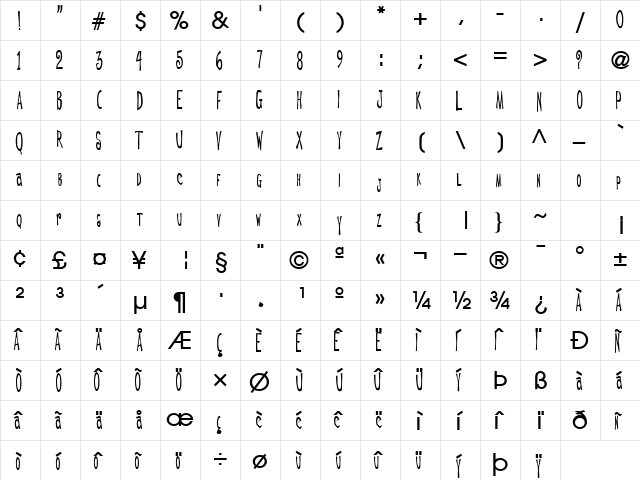
DeGarThin6 Bold Font Preview
DeGarThin6 Bold
DeGarThin6 Bold Font Details
Design Context for DeGarThin6 Typeface
DeGarThin6 offers clean, dependable letterforms without strong stylistic allegiance, making it a practical choice for designers who need flexibility. Its bold stroke weight gives it real presence on the page.